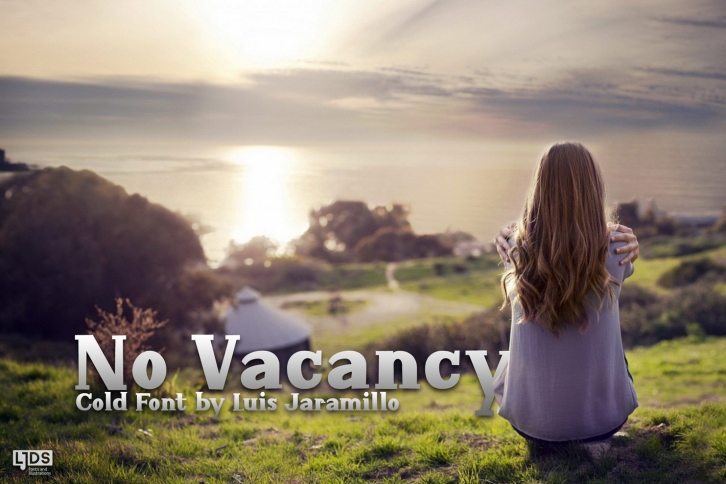
No Vacancy is a beautiful font that was designed by LJ Design Studios. It's a great choice for designers and creatives who need such a font. It was released on August 20, 2019 and the file size is 17.15 MB. No Vacancy may give a more youthful, expressive and casual look to your project. It is a very beautiful, refined, elegant, and high-quality font.